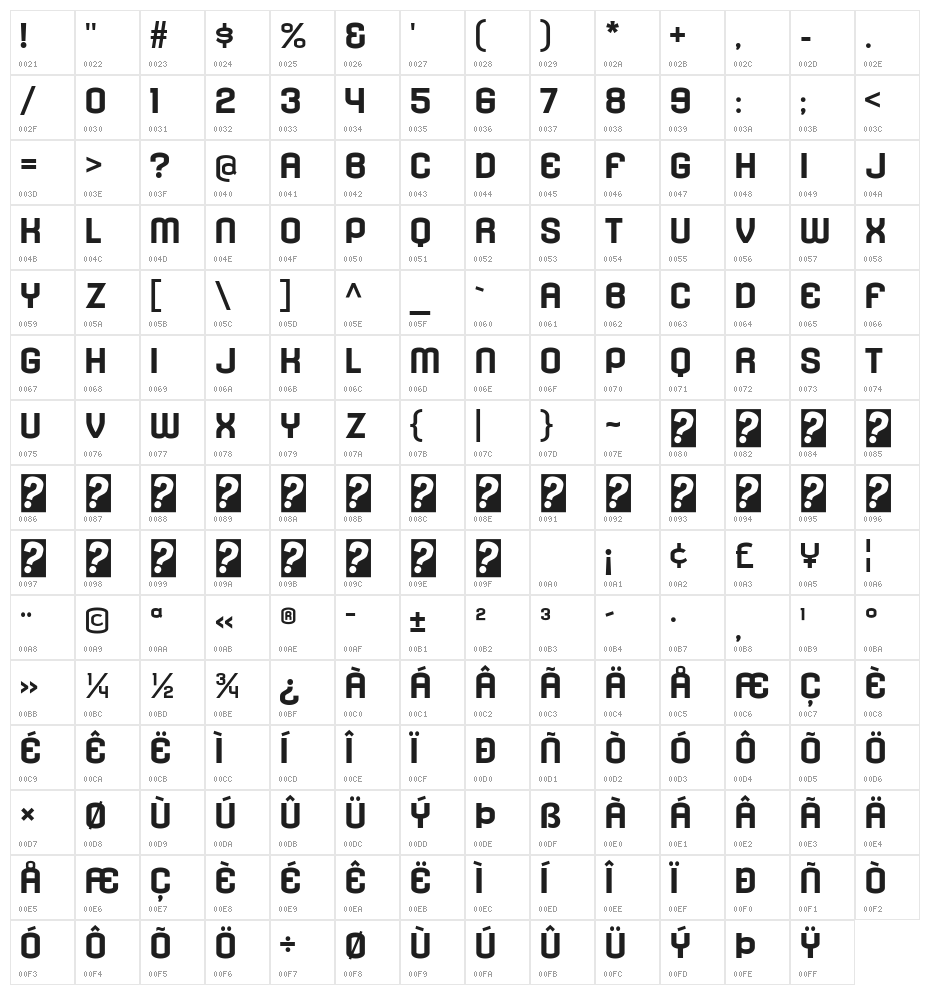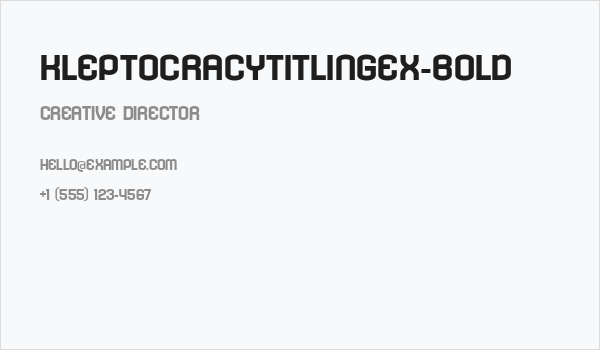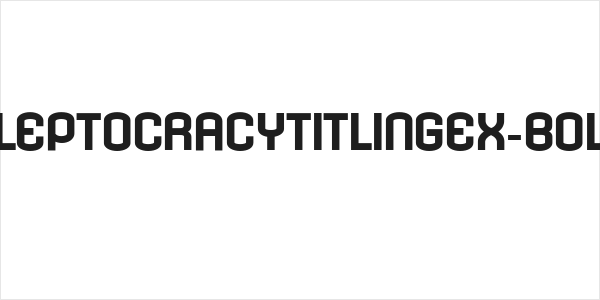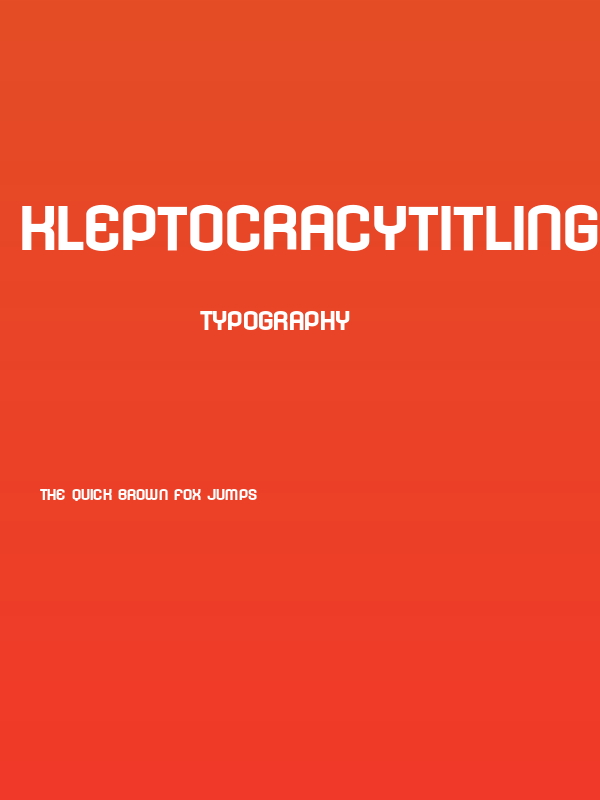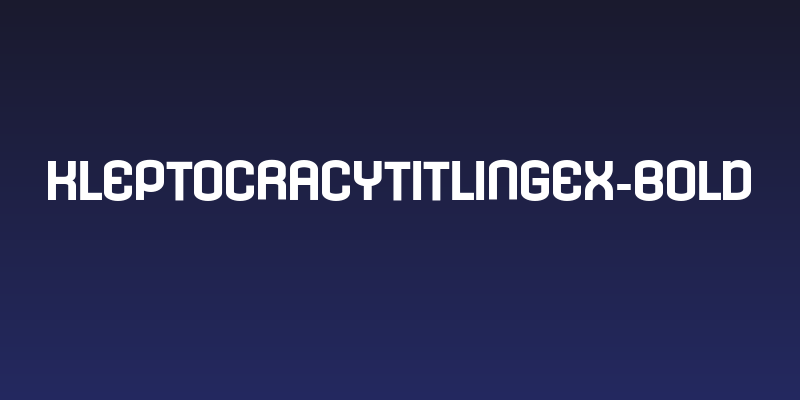
KleptocracyTitlingEx-Bold Font
KleptocracyTitlingEx-Bold Description
This font features a bold and modern design with a strong geometric structure. The characters are uniformly thick, providing a consistent and powerful appearance. The uppercase letters are particularly striking, with a squared-off style that emphasizes their boldness. The numbers and special characters maintain this geometric theme, ensuring a cohesive look across all glyphs. The font's clean lines and lack of serifs contribute to its contemporary feel, making it suitable for a variety of design applications.
| Proposed Projects | Ideal for branding, headlines, posters, and any design requiring a bold statement. |